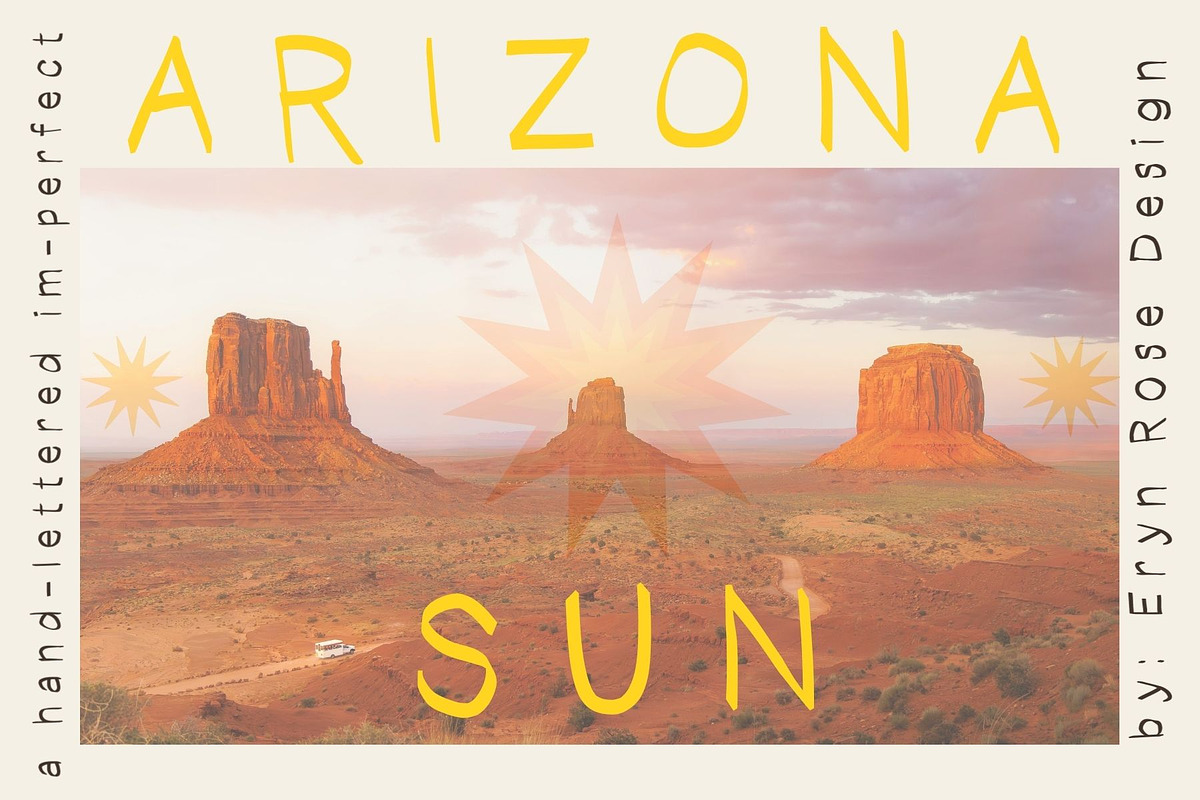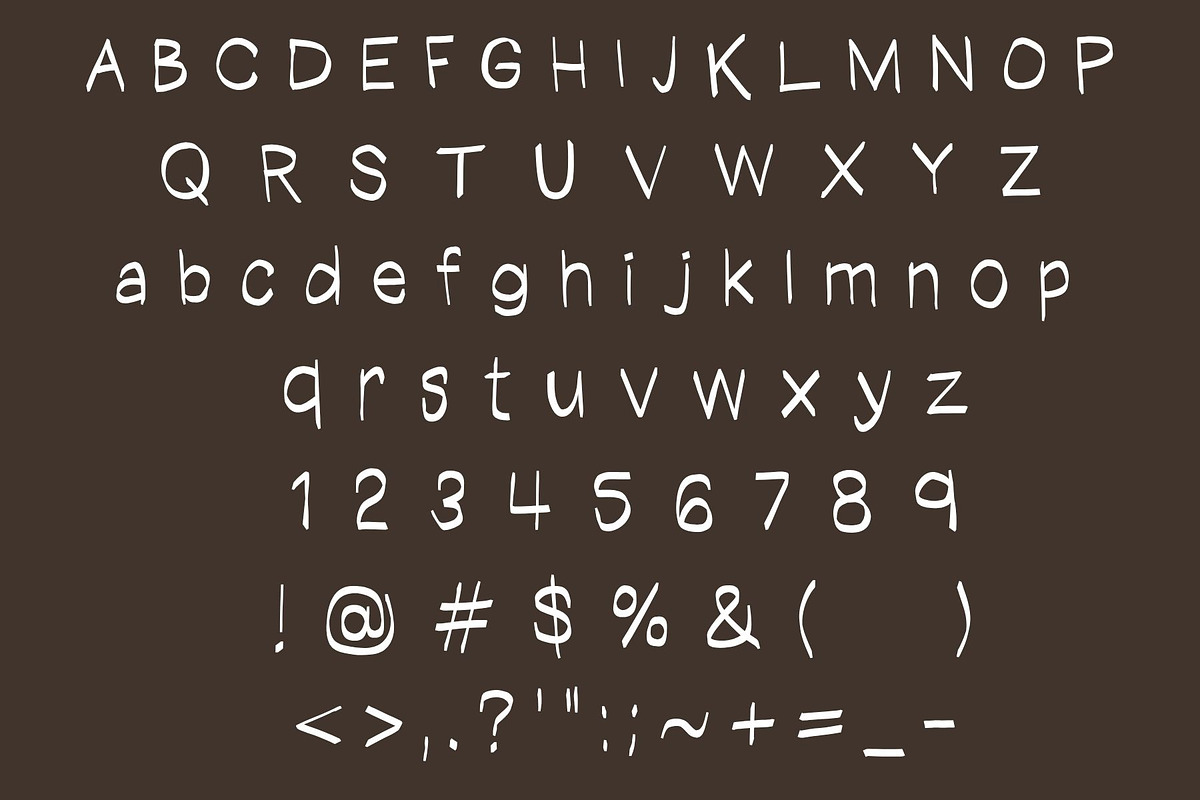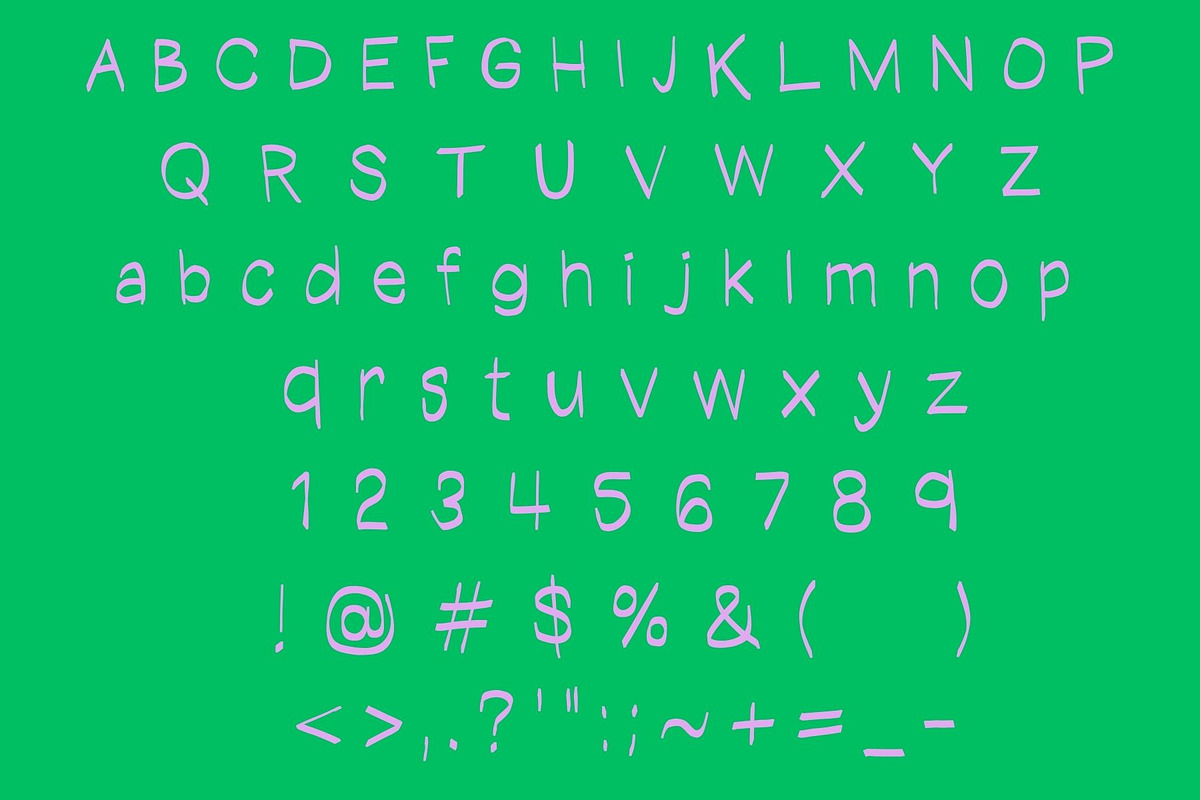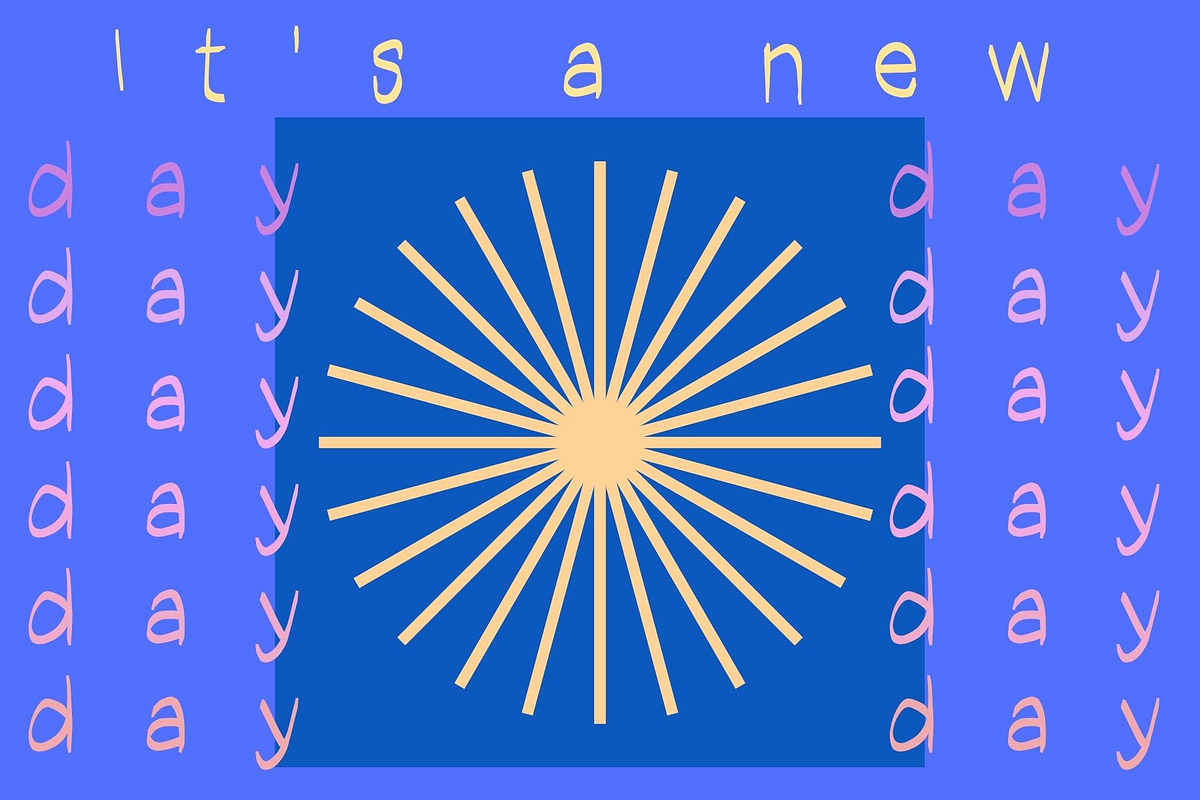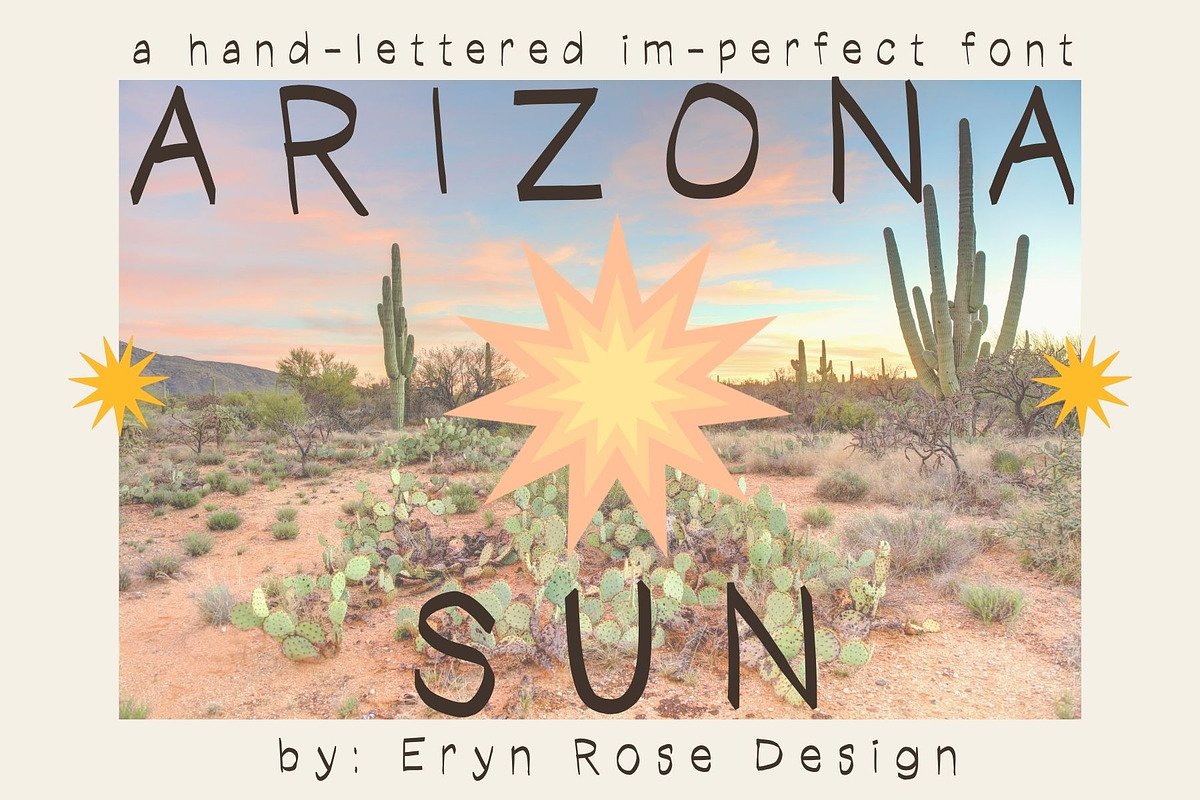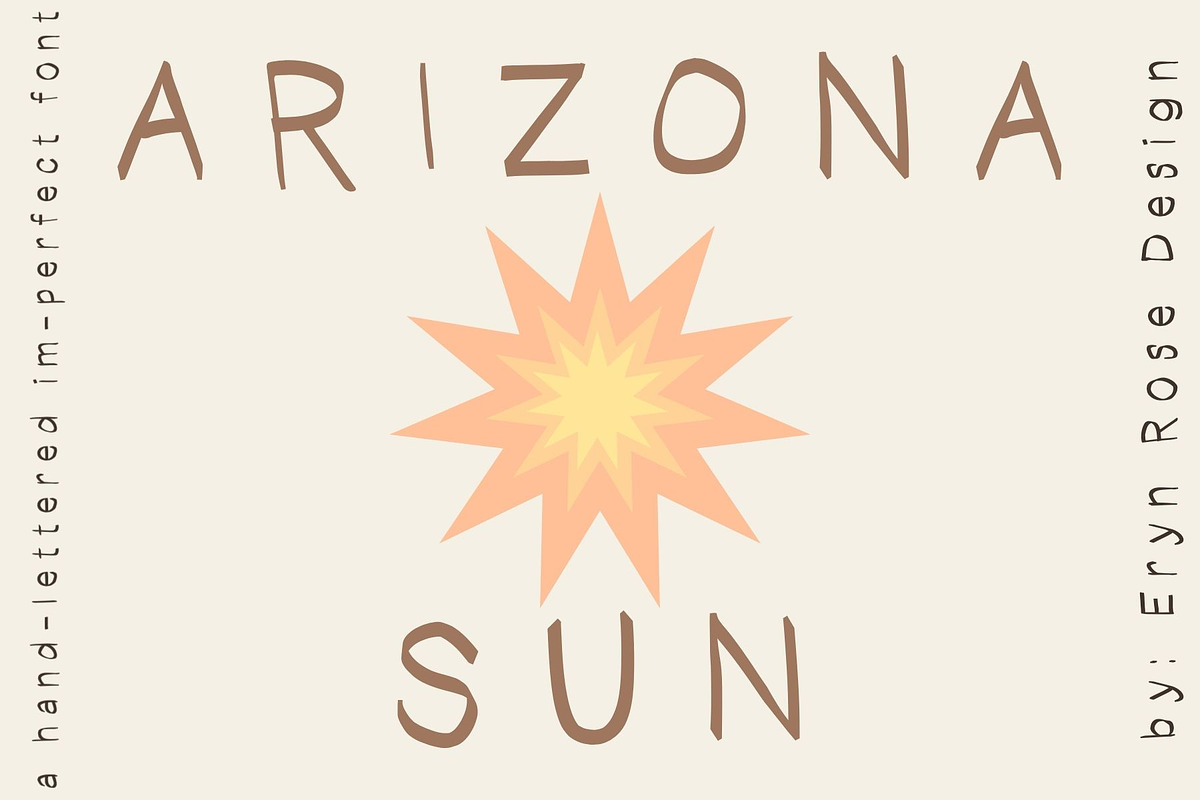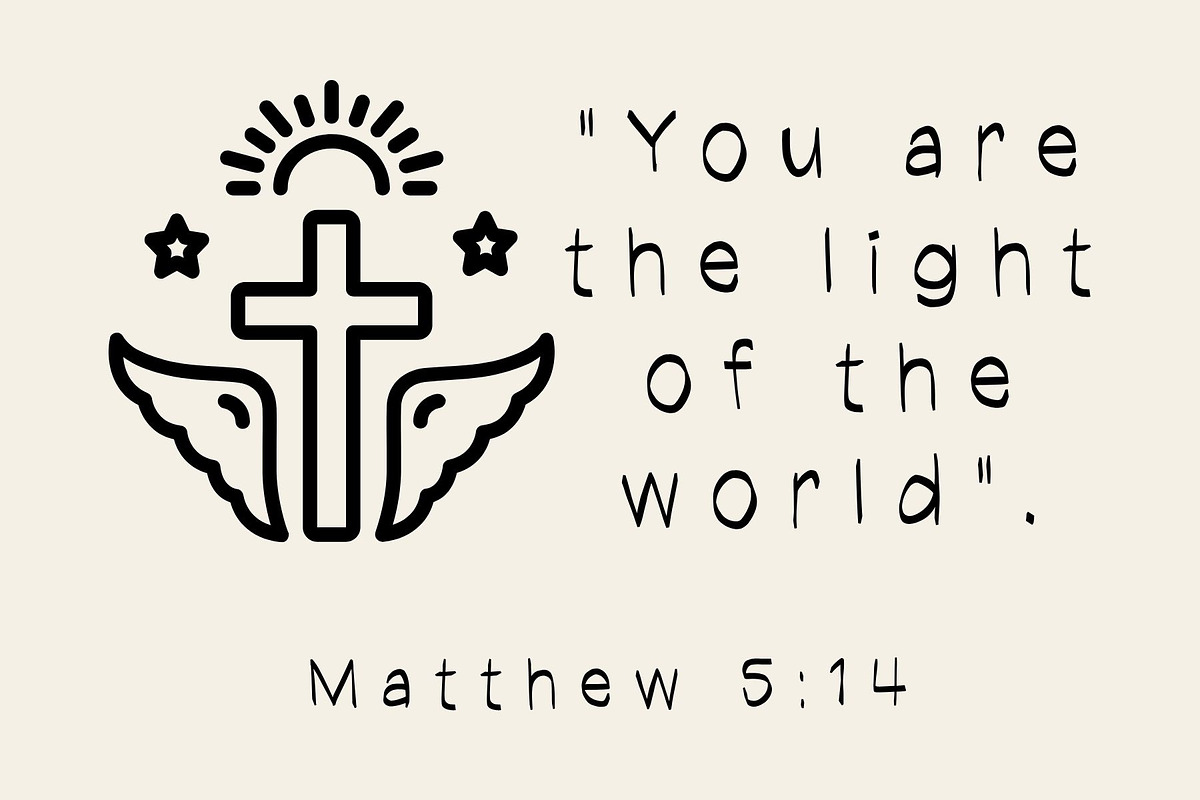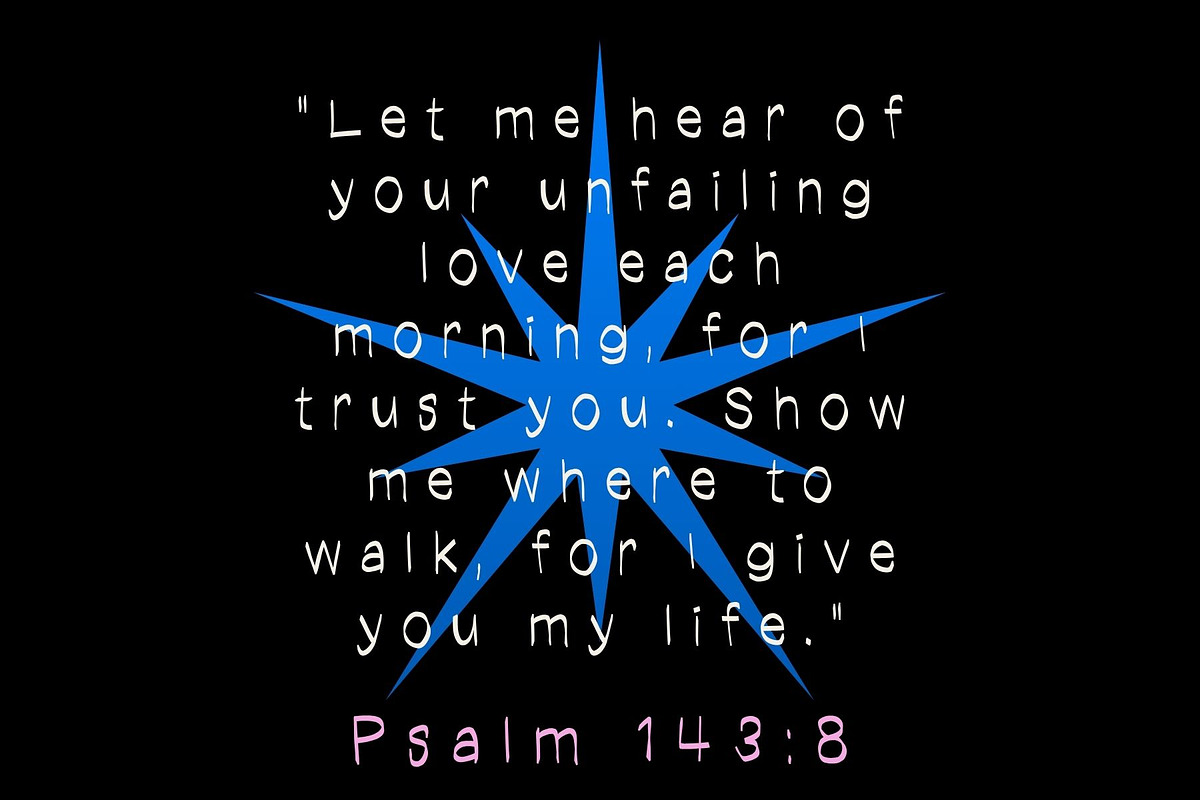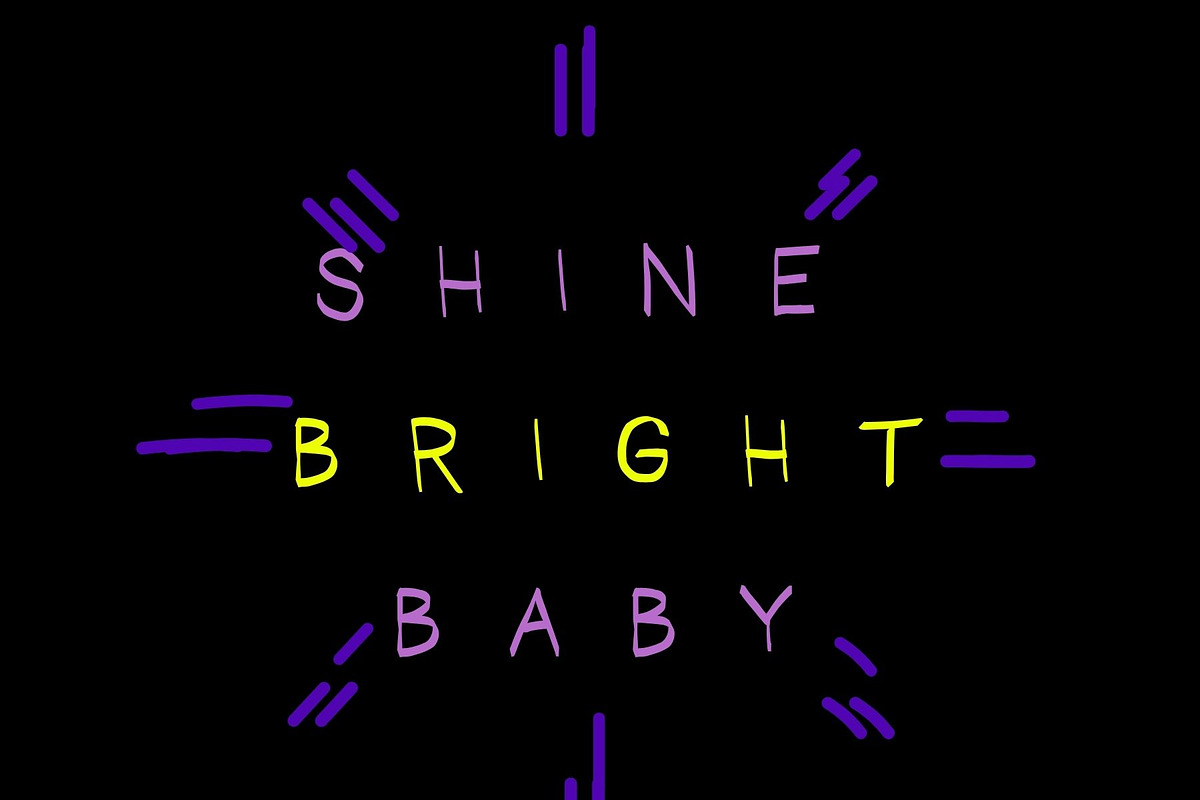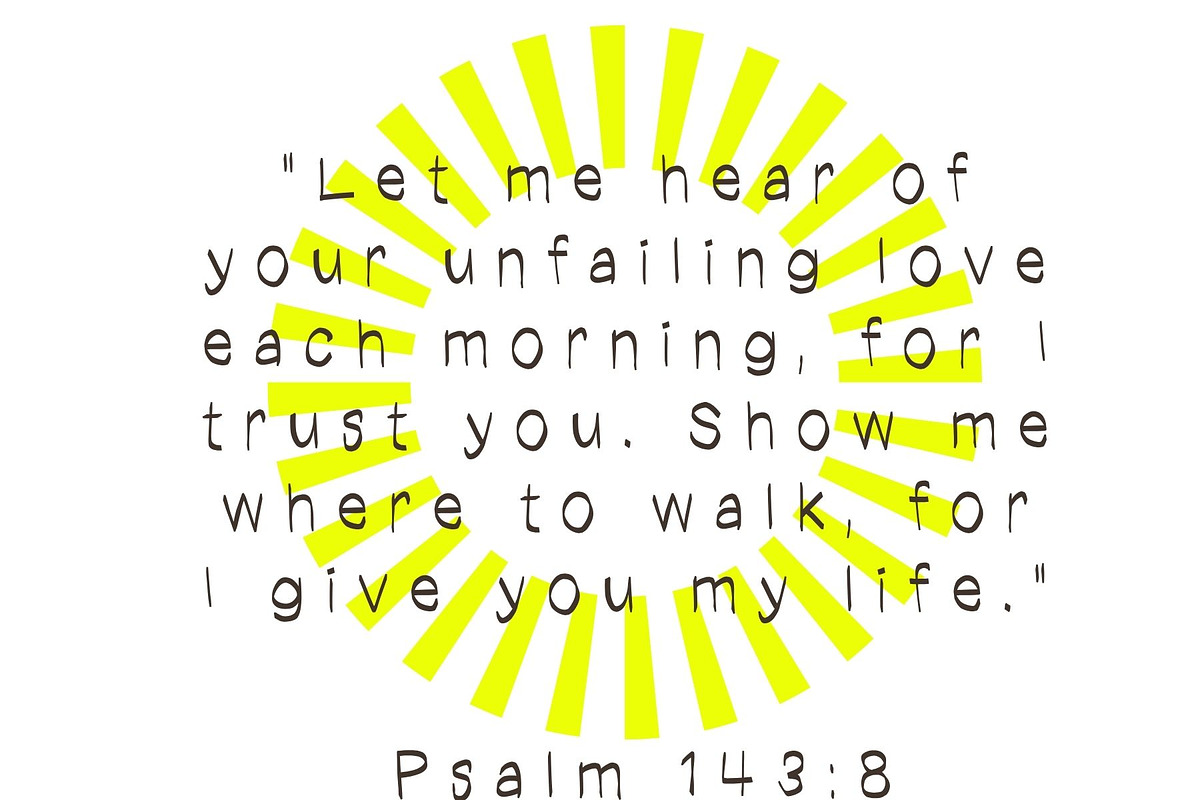
Arizona Sun a slightly wobbly Serif
Arizona Sun, a perfectly im-perfect one-of-a-kind hand-drawn font.
full alphabet, numbers, and standard symbols
Arizona Sun is a uniquely charming hand-lettered font that embodies a perfectly imperfect style. This simple, thin, and slightly wobbly 'hipster font' is ideal for a variety of creative applications. Its warm personality invites viewers to engage and explore further. Perfect for stationery design, logo creation, product branding, or eye-catching album covers, Arizona Sun adds a touch of character to any project. Enjoy the design process and celebrate the artistry of small, handmade creators.